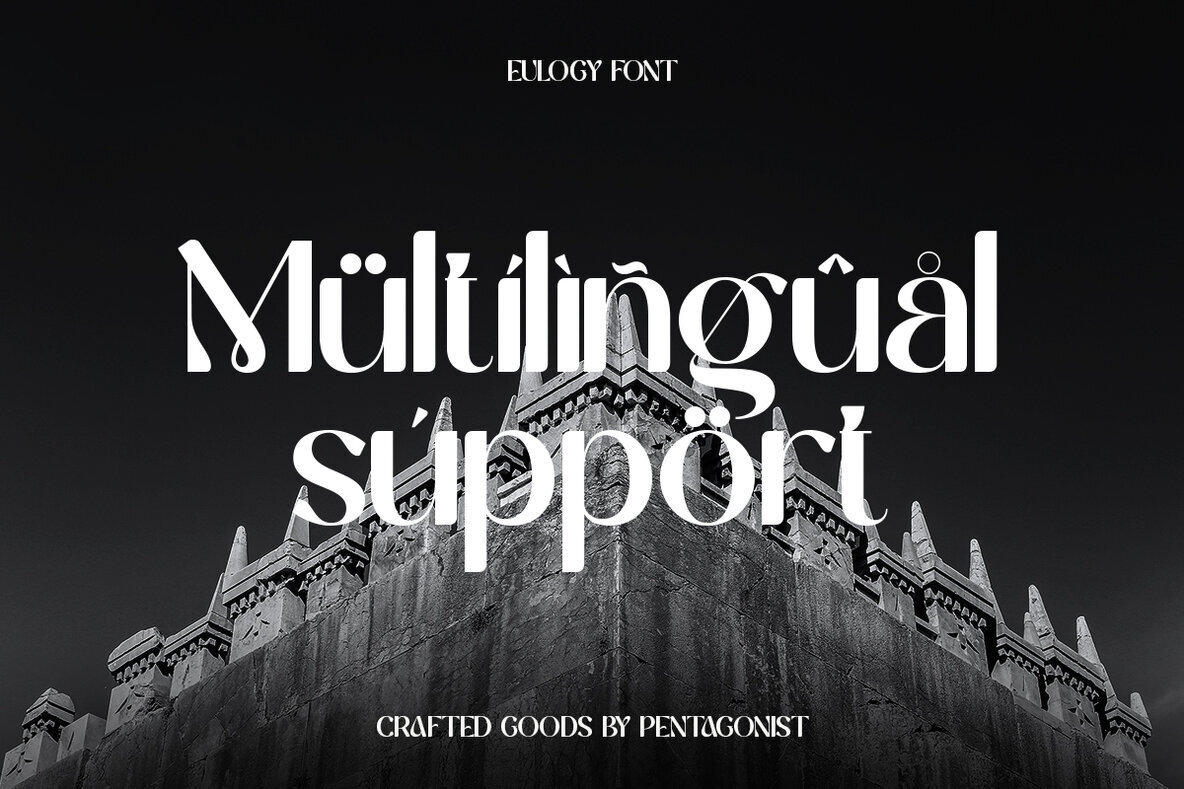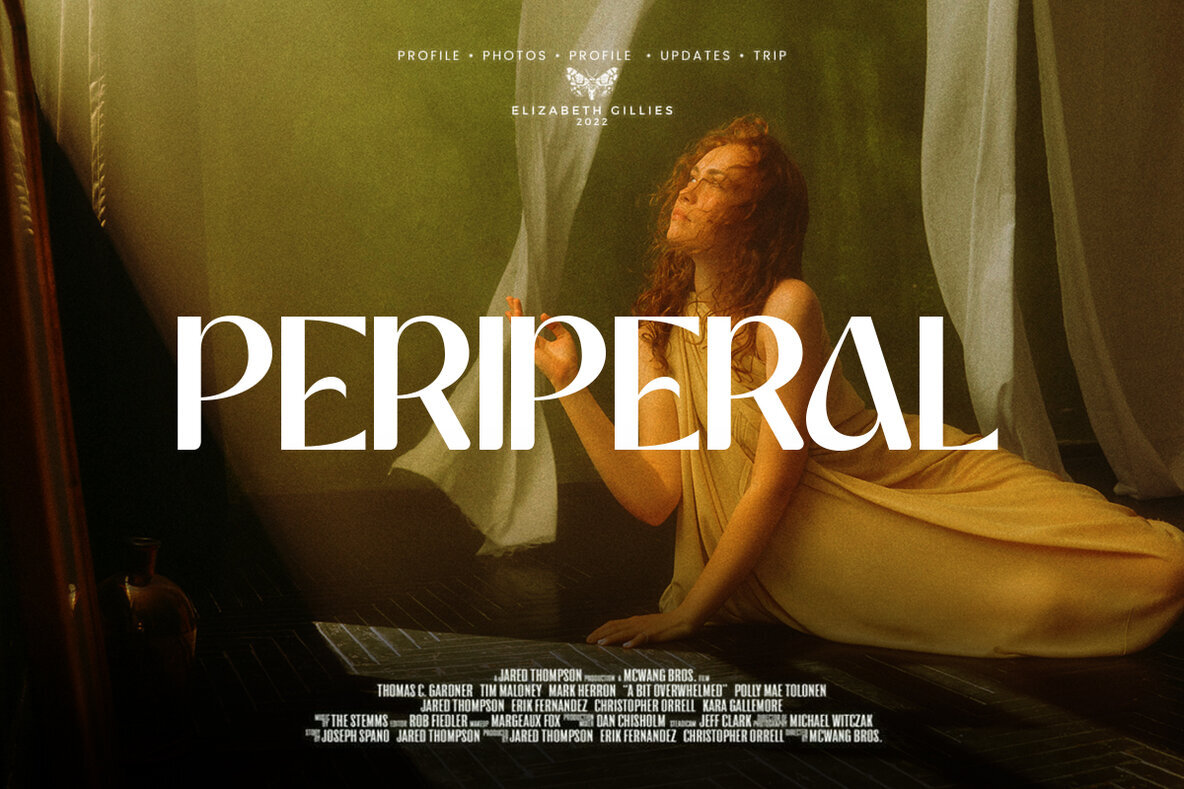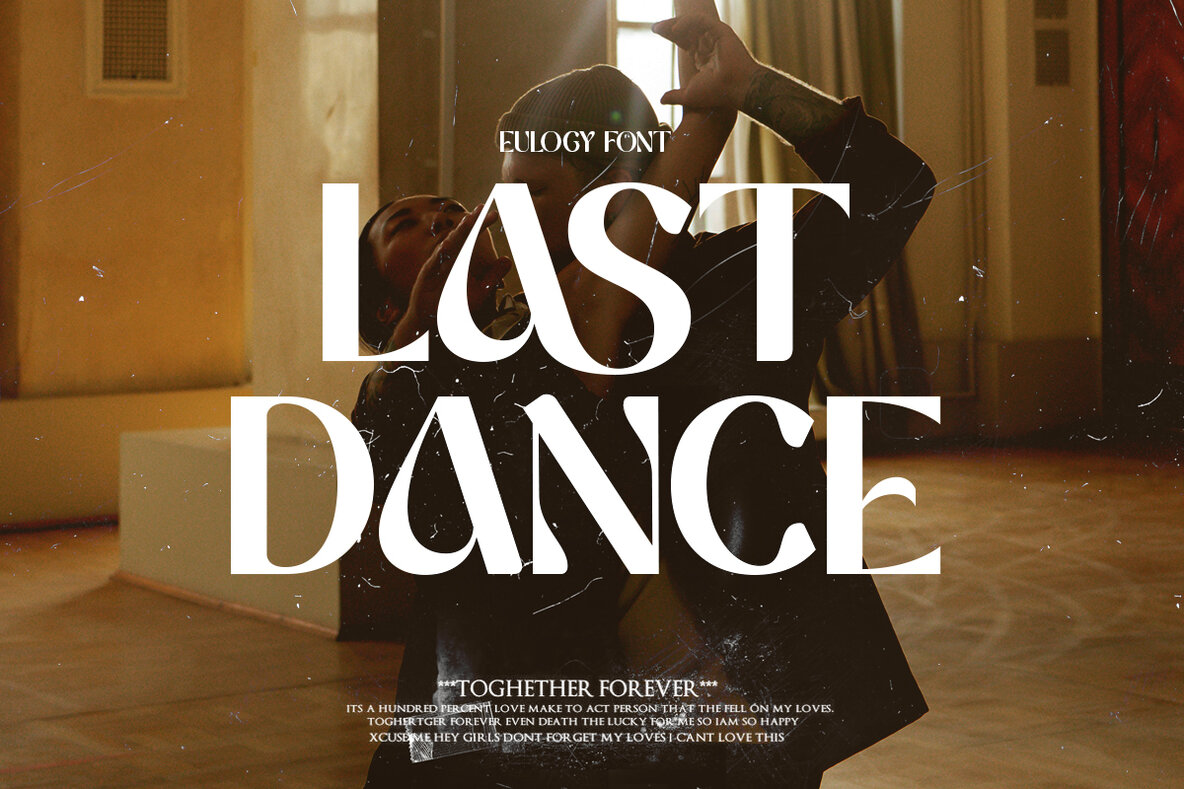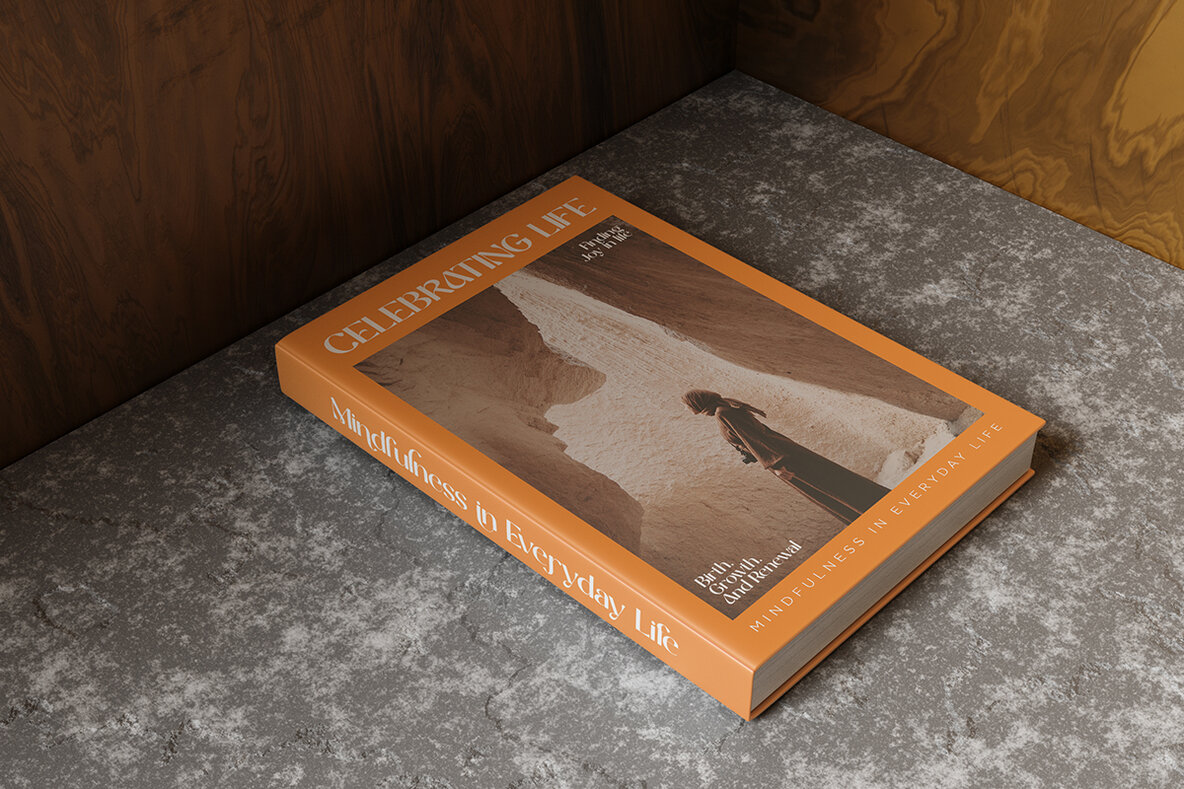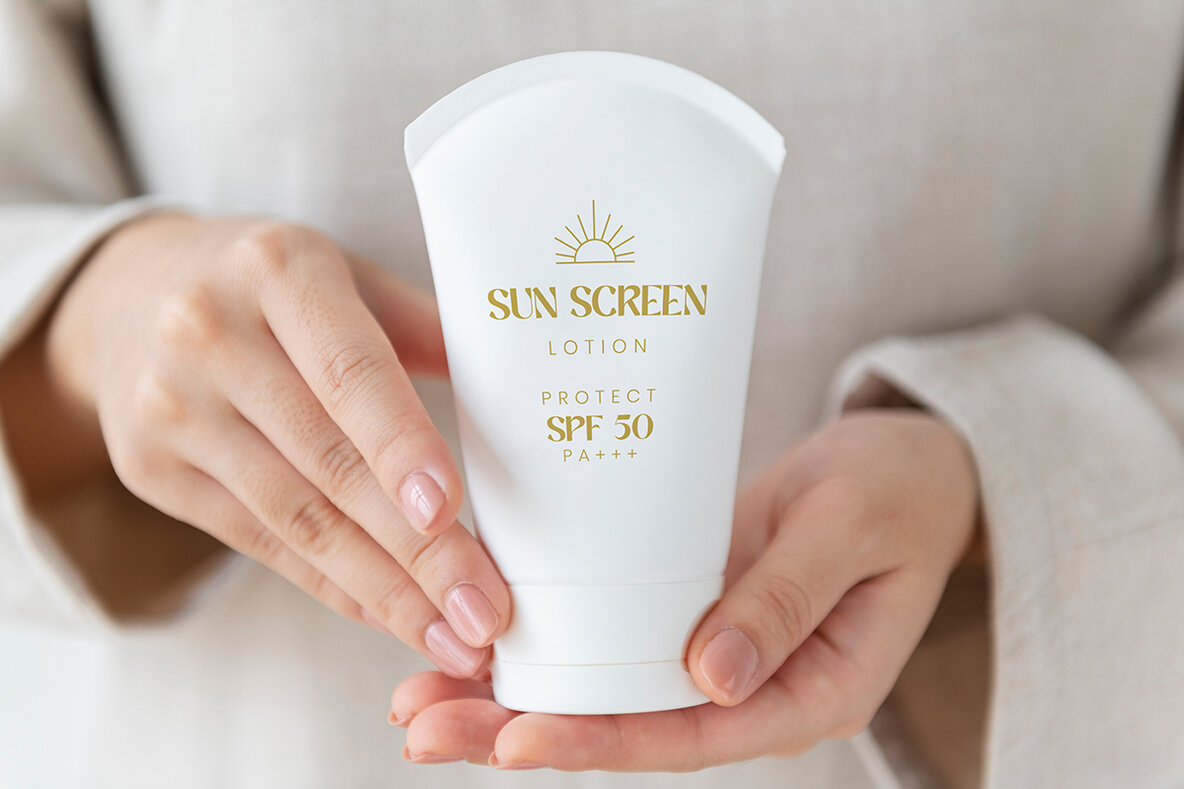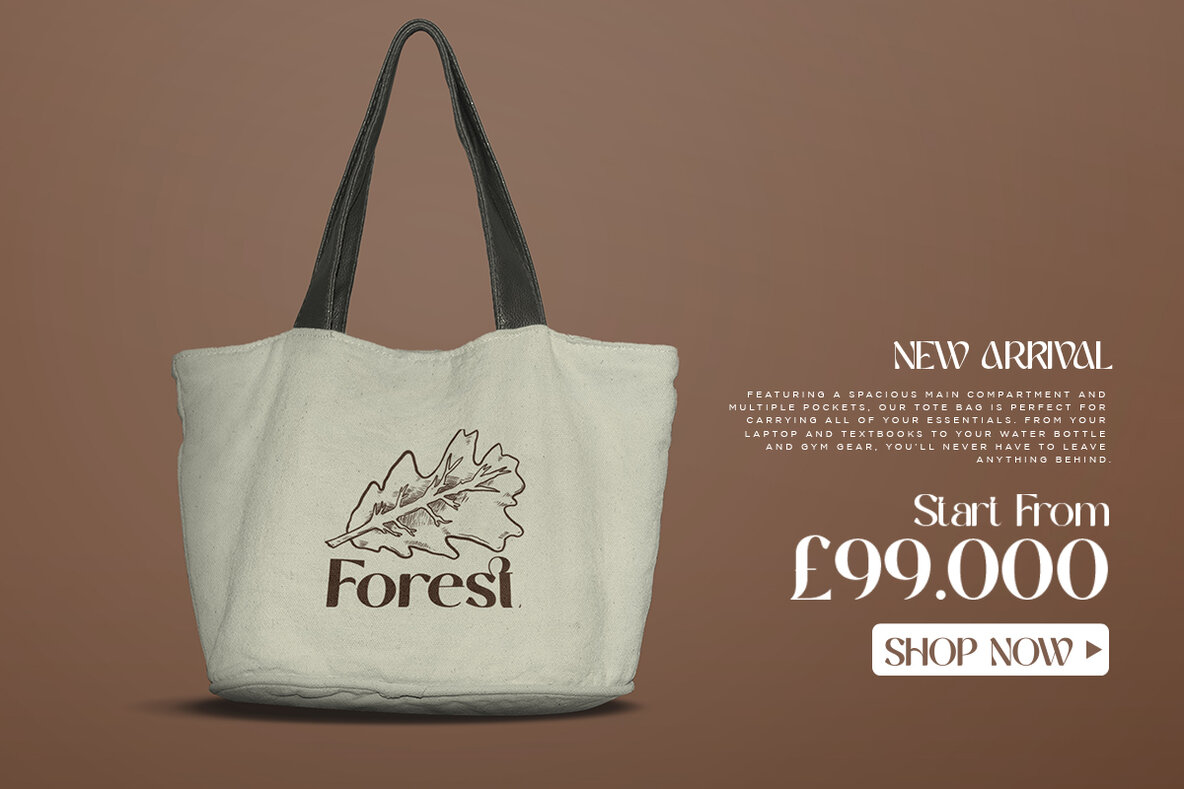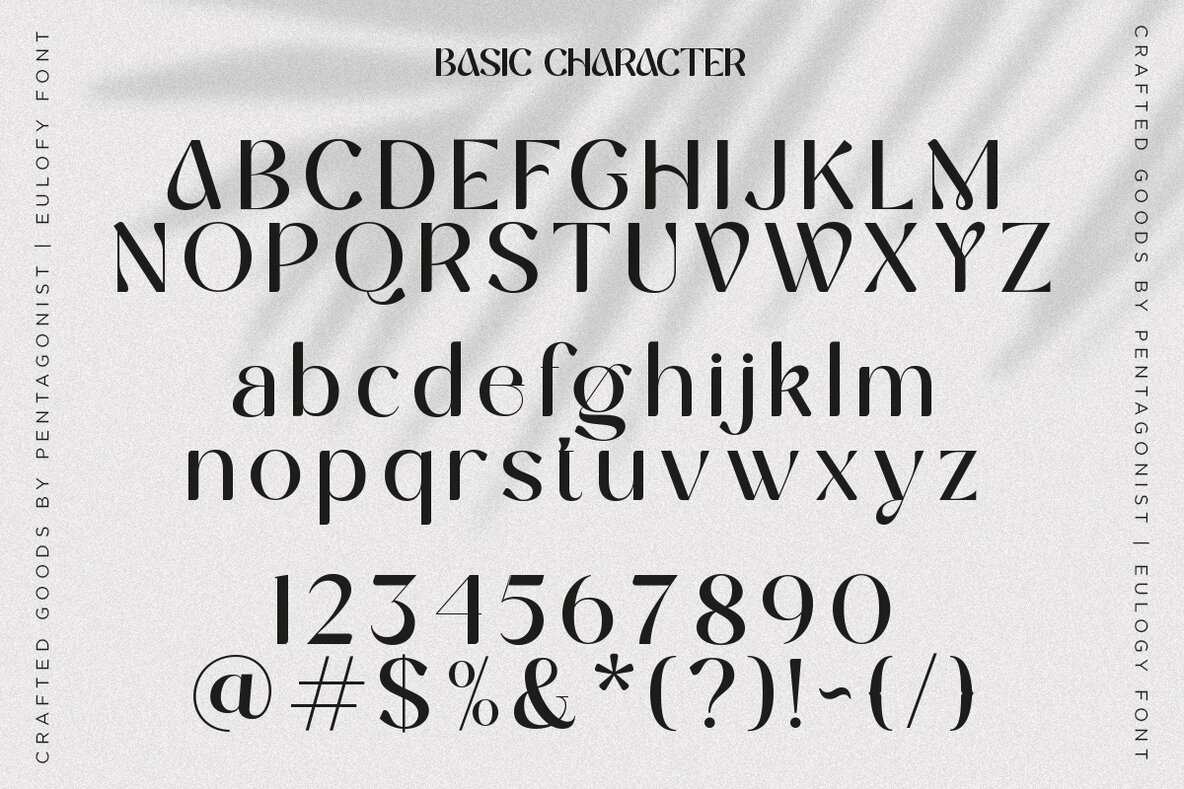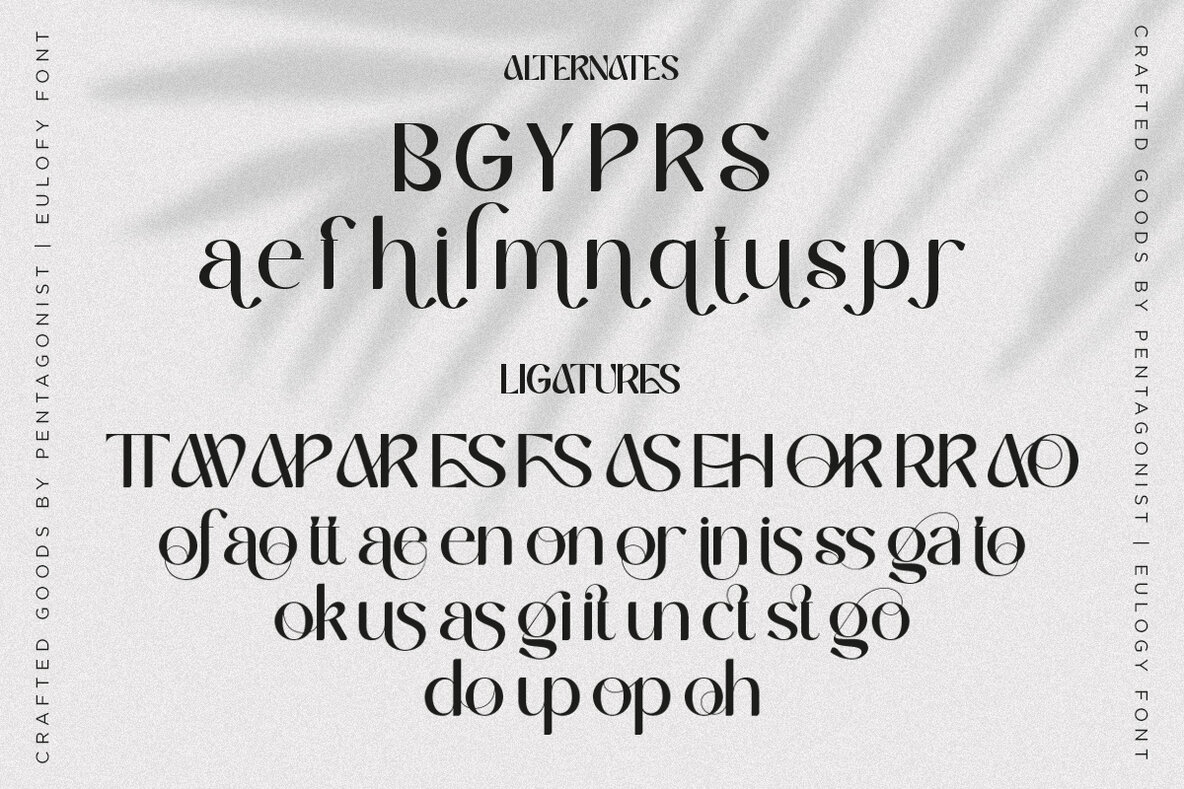
Eulogy font is a serif family font that is inspired by retro and vintage design. Its variable display style and elegant serifs give it a classic and timeless feel, making it perfect for designs that require a touch of nostalgia. Whether you're designing a logo, creating social media graphics, or working on movie or book titles, Eulogy font is a great choice for adding a vintage flair to your designs.